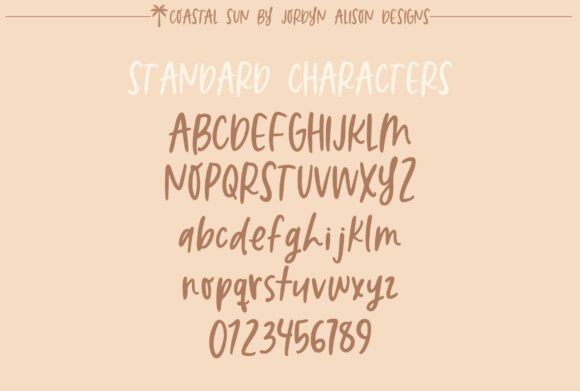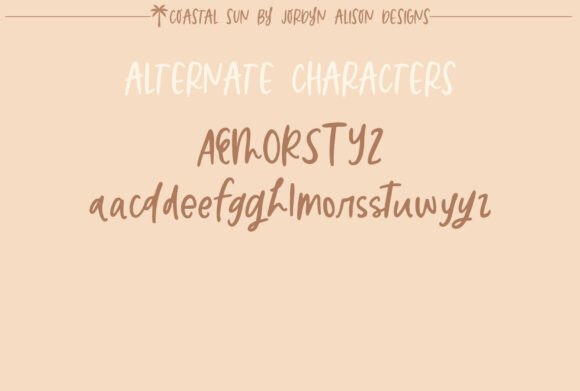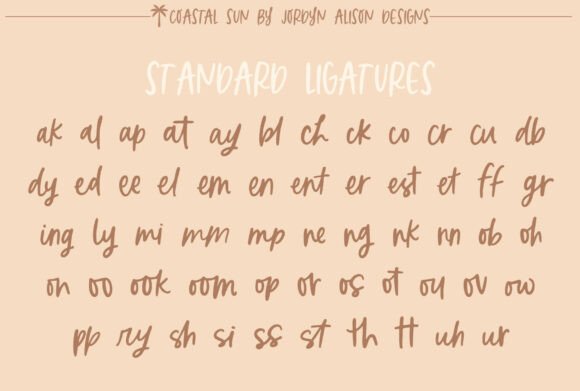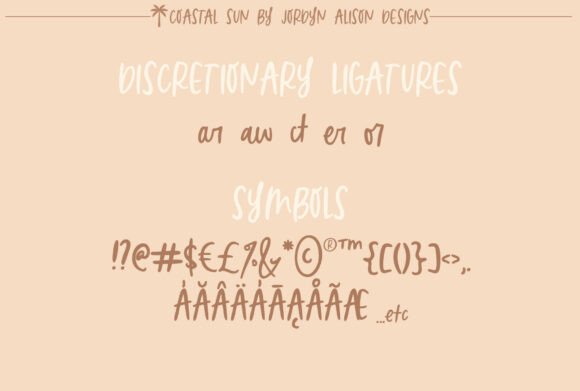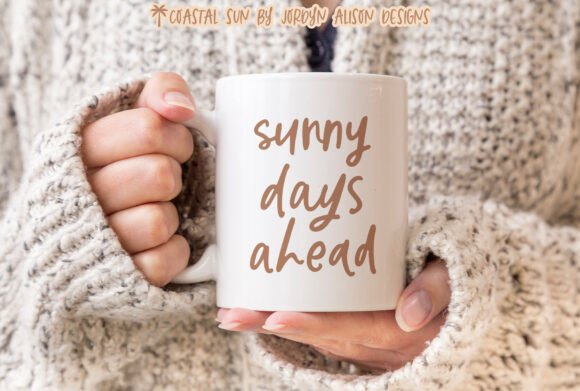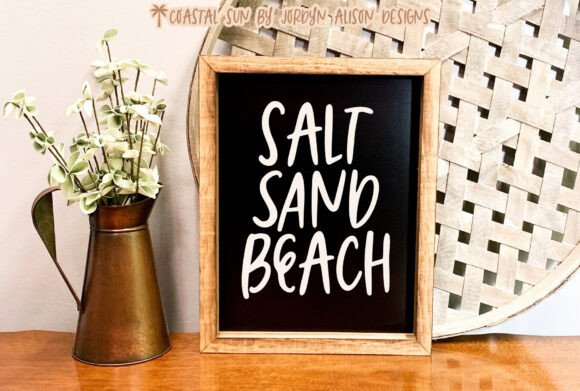
Coastal Sun Font: Bringing the Warmth of Seaside Days to Your Designs
Imagine the feeling of walking along a serene coastline, the warm sun on your skin, and the sound of waves gently lapping at the shore. The Coastal Sun font brings this idyllic experience to your designs, infusing them with a sense of relaxation and effortless style. This beautiful, handwritten font is perfect for designers and crafters looking to add a touch of coastal charm to their projects.
The Essence of Coastal Sun
Coastal Sun is a relaxed handwritten font that embodies the carefree spirit of coastal living. Its smooth, flowing strokes and naturally casual rhythm evoke the feeling of a warm summer breeze. The font’s soft edges and gentle curves create a personal and professional look that’s perfect for a wide range of design applications.
Design Applications for Coastal Sun
Coastal Sun is an incredibly versatile font that can be used in various design projects, including:
- Logos: Create a memorable brand identity with Coastal Sun’s unique and stylish lettering.
- Quotes: Add a touch of inspiration and positivity to your quote designs with this beautiful font.
- Social Media Posts: Make your social media posts stand out with Coastal Sun’s fresh and modern look.
- Invitations: Add a personal touch to your invitations, whether it’s for a wedding, birthday party, or other special occasion.
- Packaging: Elevate your packaging design with Coastal Sun’s stylish and eye-catching lettering.
- Travel Blogs: Transport your readers to a coastal paradise with Coastal Sun’s evocative font.
- Lifestyle Branding: Create a cohesive brand identity that exudes warmth, clarity, and a sense of freedom.
The Benefits of Using Coastal Sun
Coastal Sun offers several benefits that make it an excellent choice for designers and crafters:
- Effortless Style: Coastal Sun’s relaxed and casual design makes it easy to add a touch of sophistication to your projects.
- Readability: The font’s clear and flowing strokes ensure excellent readability, even in smaller sizes.
- Versatility: Coastal Sun can be used in a wide range of design applications, from logos to social media posts.
- Uniqueness: The font’s distinctive lettering and styling make it stand out from more traditional fonts.
Tips for Using Coastal Sun Effectively
To get the most out of Coastal Sun, consider the following tips:
- Mix and Match: Combine Coastal Sun with other fonts to create a unique and visually appealing design.
- Play with Sizes: Experiment with different font sizes to add emphasis and create visual hierarchy.
- Use in Headlines and Body Text: Coastal Sun works beautifully in both bold headlines and simple body text.
| Font Name | Coastal Sun Font |
| Author | jordynalisondesigns |
Coastal Sun is a stunning handwritten font that brings the warmth and relaxation of seaside days to your designs. Its smooth, flowing strokes and naturally casual rhythm make it perfect for a wide range of design applications. Whether you’re a designer or crafter, Coastal Sun is an excellent choice for adding a touch of coastal charm to your projects. So why not let your creativity drift with the tide and glow with the light of Coastal Sun?
In conclusion, Coastal Sun is a beautiful and versatile font that’s sure to inspire your creativity. With its effortless style, excellent readability, and uniqueness, it’s an excellent addition to any design project. So go ahead, give Coastal Sun a try, and experience the warmth and relaxation it brings to your designs.